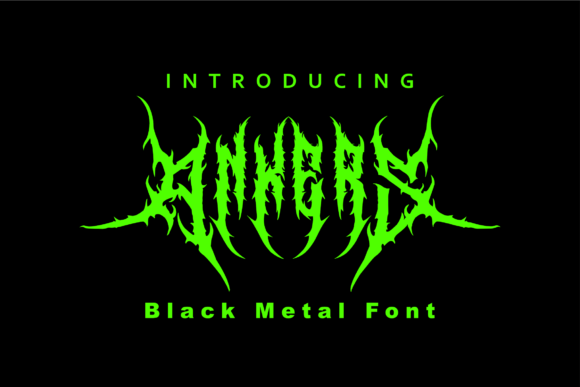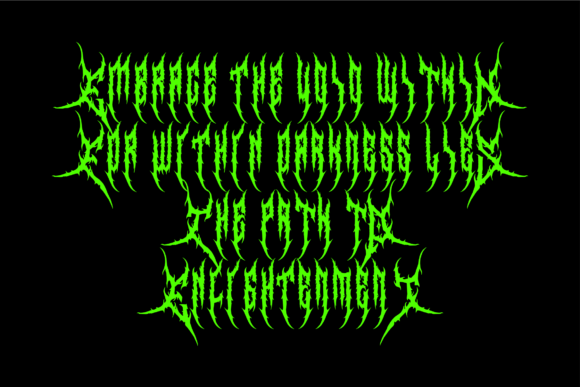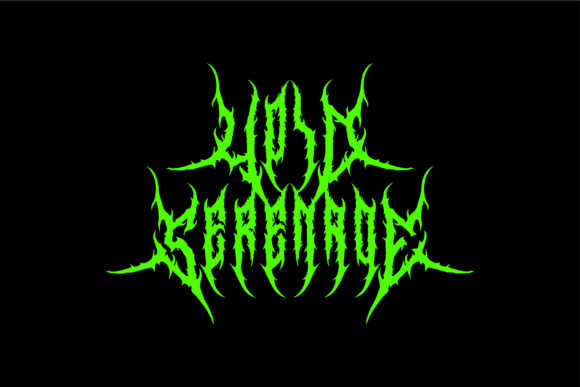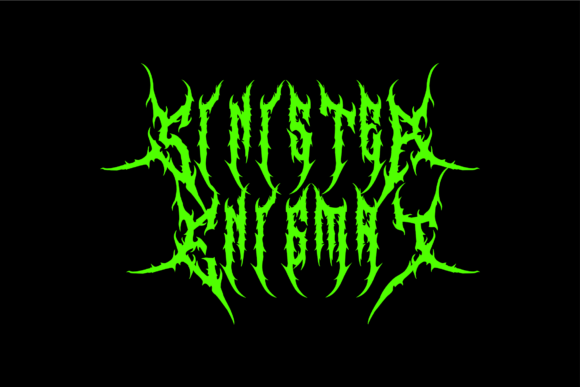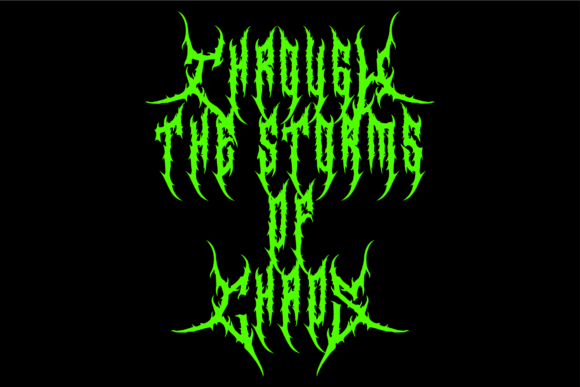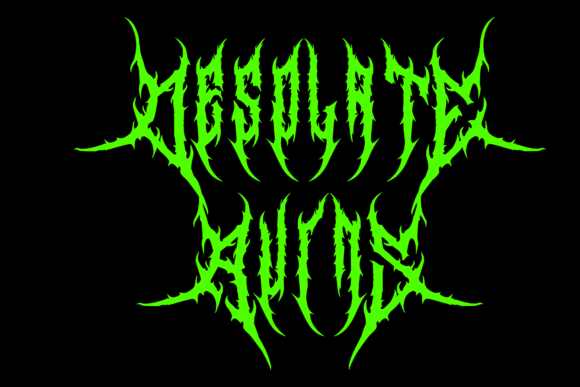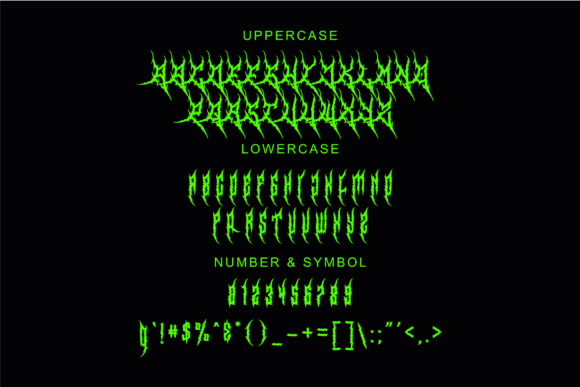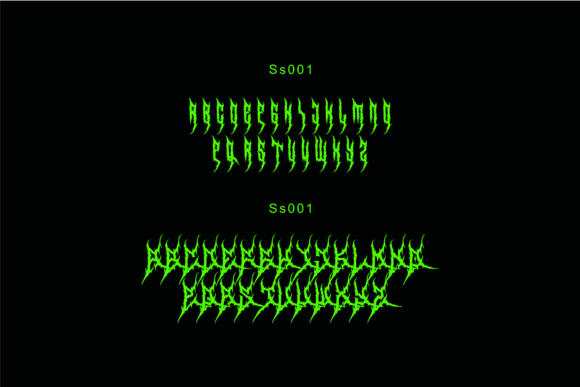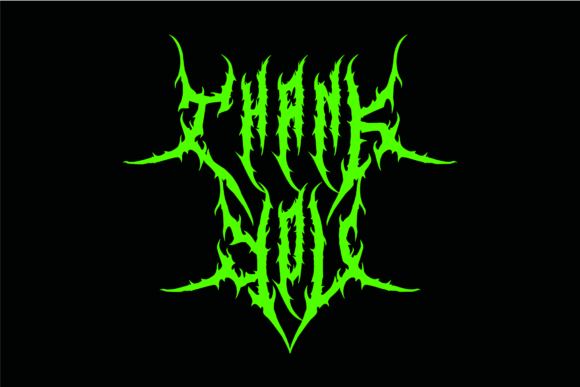
Ankers Font
Ankers embodies the essence of black metal aesthetics with its rugged and aggressive design. Crafted for designers and brands seeking a raw, edgy look, Ankers features two sets of alternate letters to enhance versatility and creativity in design. Its irregular letterforms and sharp edges evoke a sense of chaos and intensity, making it perfect for projects that demand a metal-inspired vibe, whether it’s for album covers, merchandise branding, or gritty graphic design. Ankers is the ideal choice for those who crave a font that embodies the spirit of metal – raw, intense, and unapologetically bold.